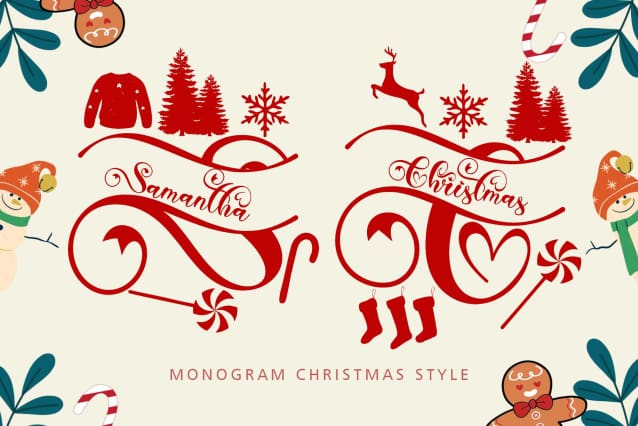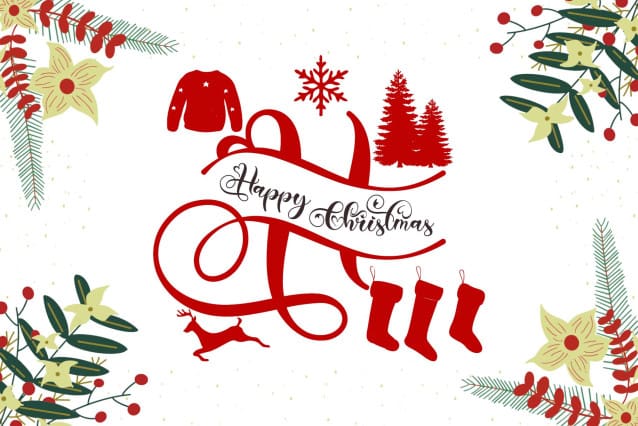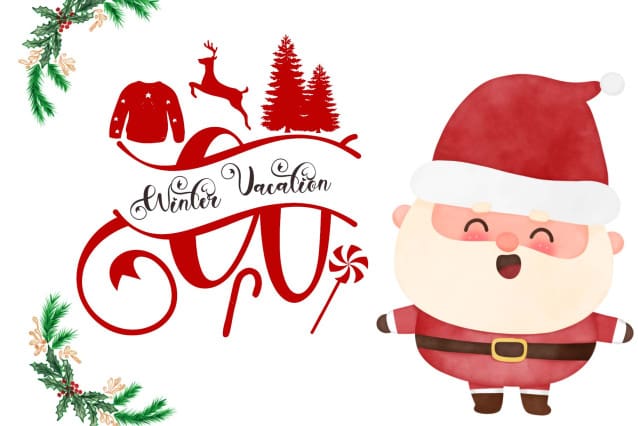
Samantha Christmas Monogram Font
Samantha Christmas Monogram Font is a beautiful and unique Christmas monogram font. It comes with capital letters, lowercase letters, ligatures, numbers, punctuation, and multilingual support. It is perfect for invitations, logos, banners, Christmas greetings, New Year greetings, branding, stickers, and more.